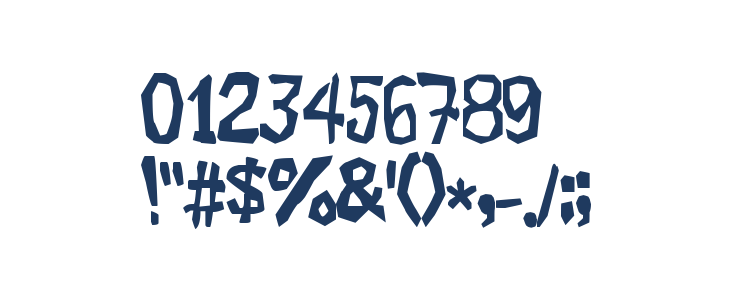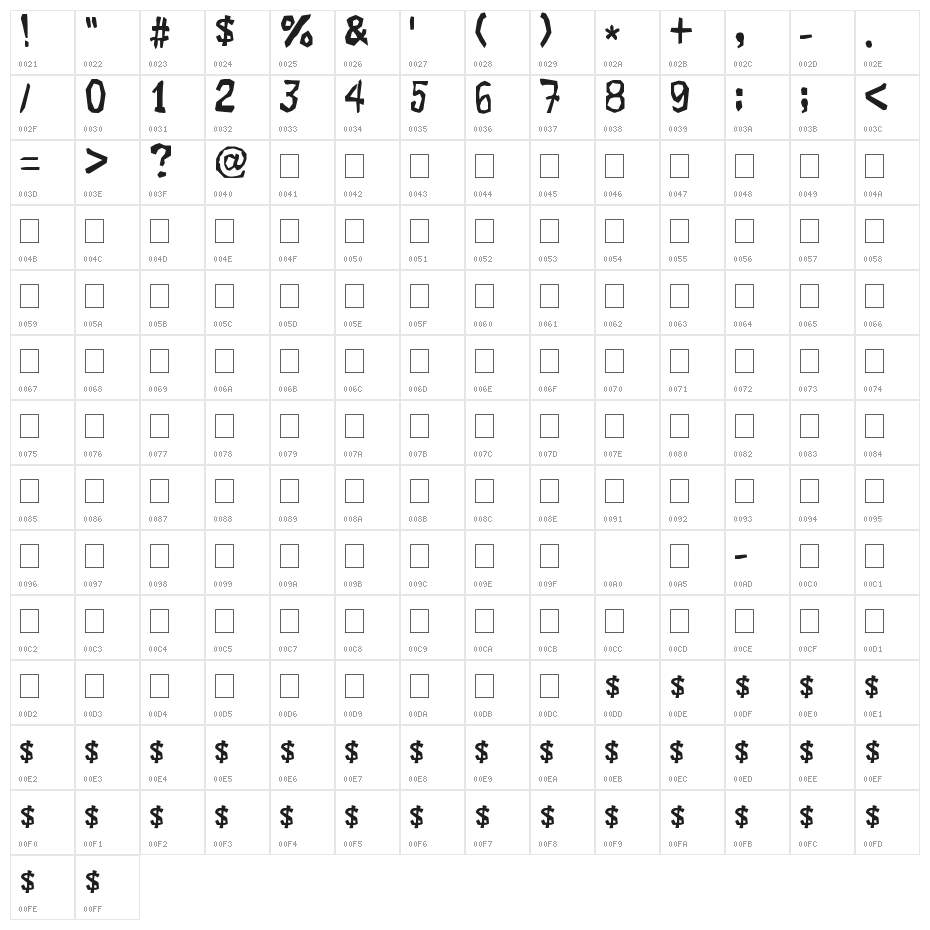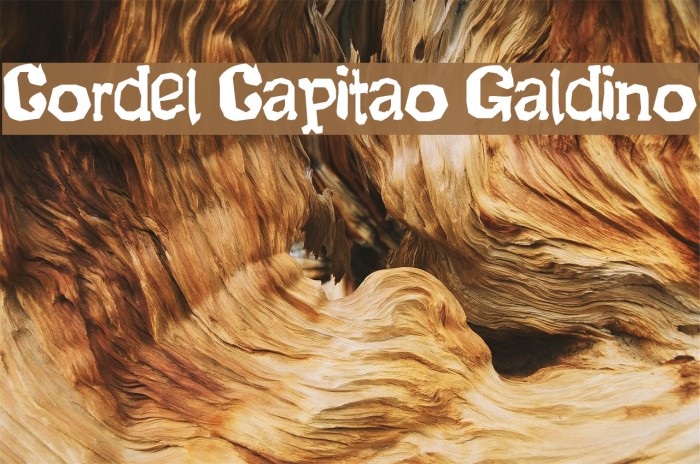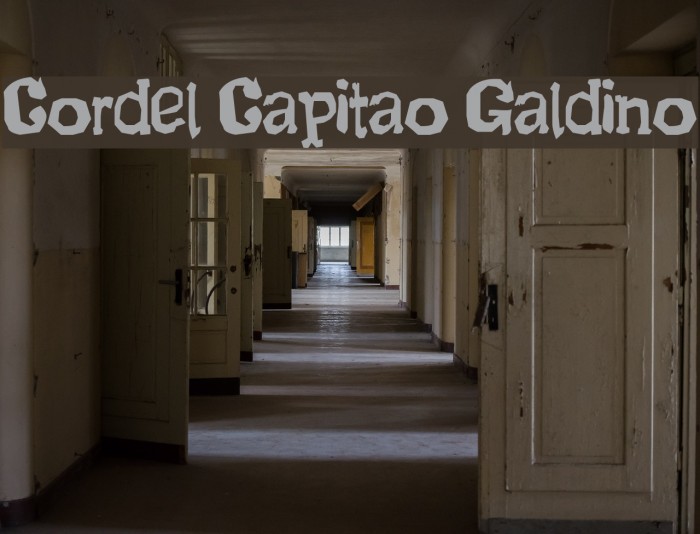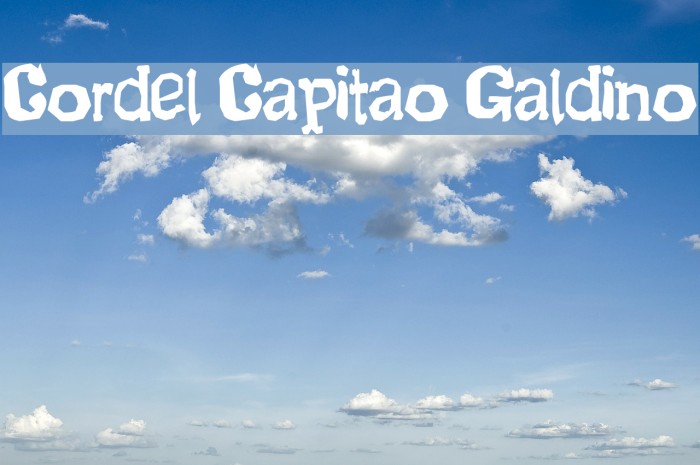
Cordel Capitao Galdino Font
Cordel Capitao Galdino Description
This font features a bold and rugged style, reminiscent of traditional woodcut or linocut prints. The characters have an uneven, hand-carved appearance, giving them a rustic and artisanal feel. The uppercase letters are particularly striking, with exaggerated serifs and varying stroke widths that add to the handcrafted aesthetic. The lowercase letters maintain this theme, with quirky angles and a slightly irregular baseline. Numbers and special characters follow suit, offering a cohesive look across the entire character set. This font is ideal for projects that require a touch of vintage charm or a handcrafted look.